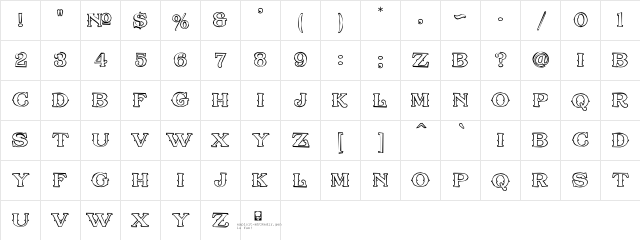
Complete LHF Old Abe OUTLINE Regular glyph index. Displaying only characters natively supported by LHF Old Abe OUTLINE Regular font.
LHF Old Abe OUTLINE is built around its visual character rather than neutral utility - its distinctive forms are designed to make an impression at display sizes.
Font Pairing: Pair with a clean neutral sans-serif for body copy to let LHF Old Abe OUTLINE's character lead without overwhelming the composition.
Pro Tip: Use LHF Old Abe OUTLINE exclusively at display sizes - it was designed to be seen, not read at length. Let a neutral companion handle body copy.